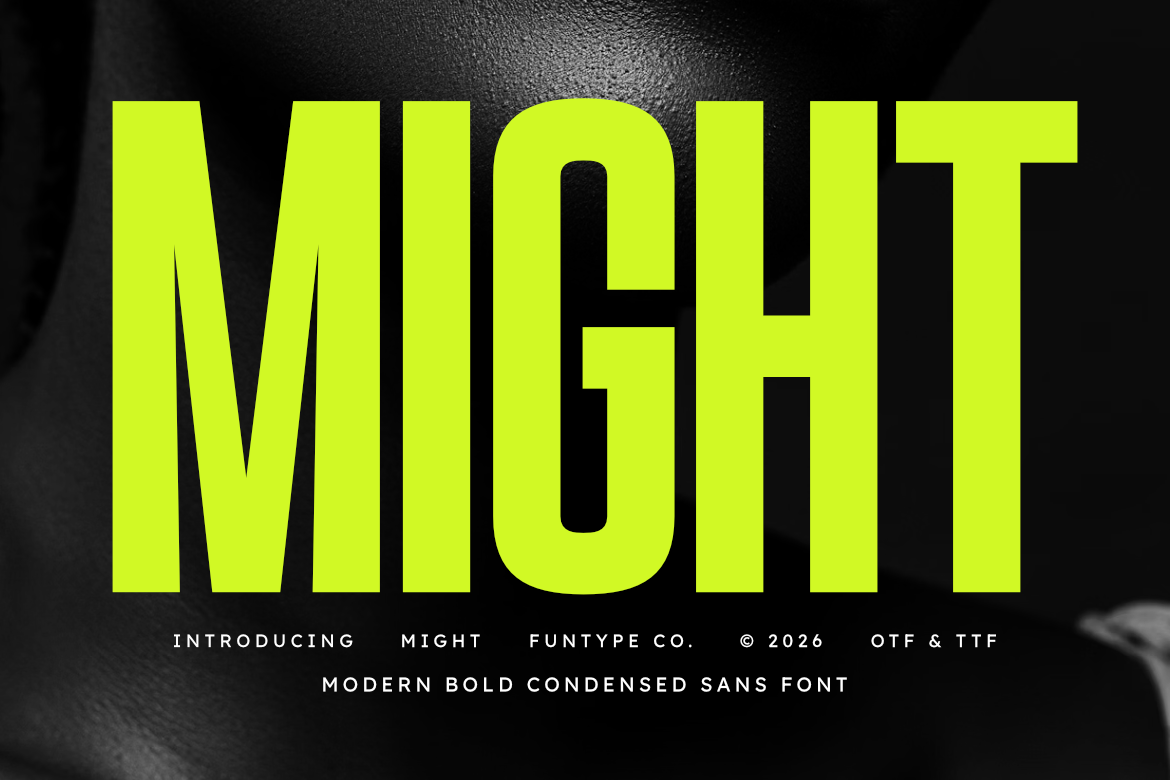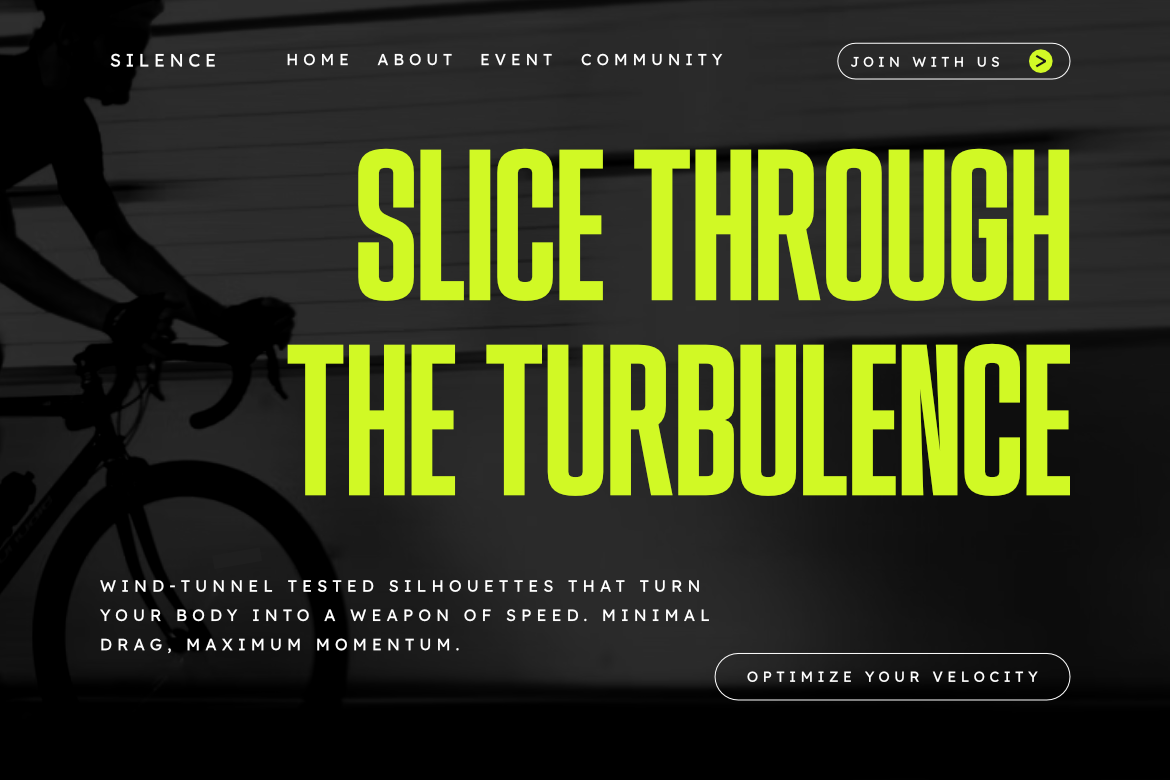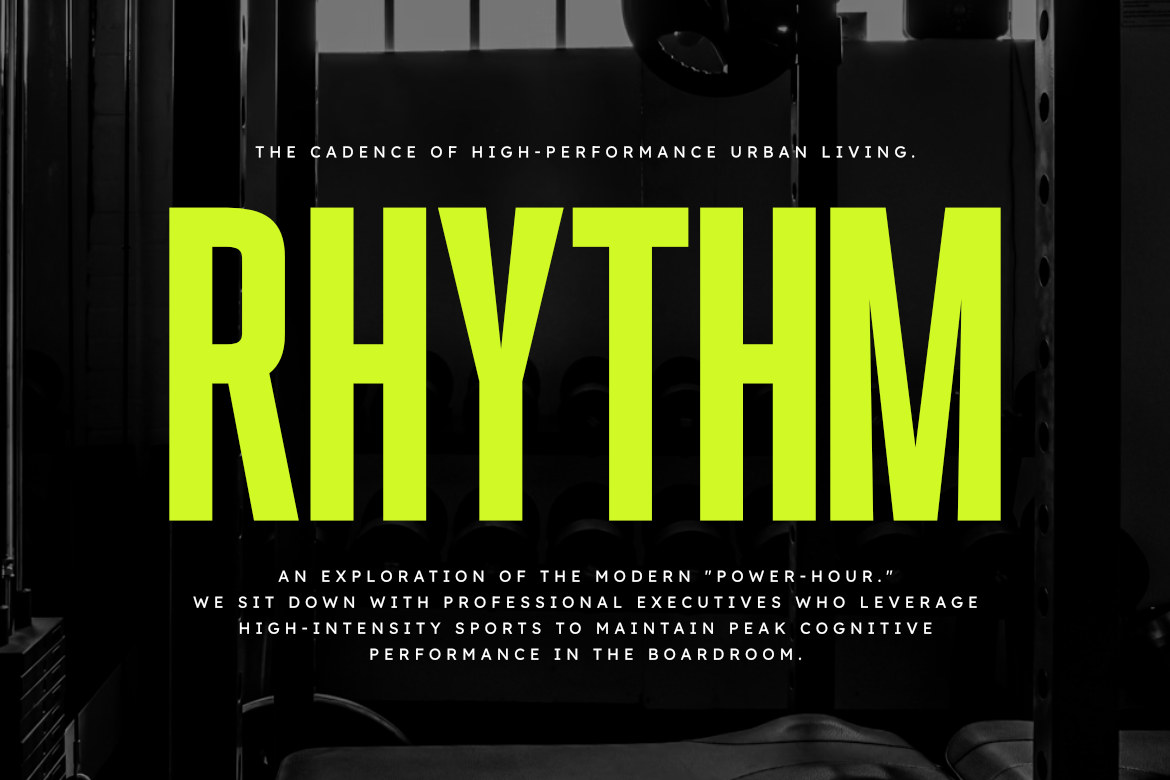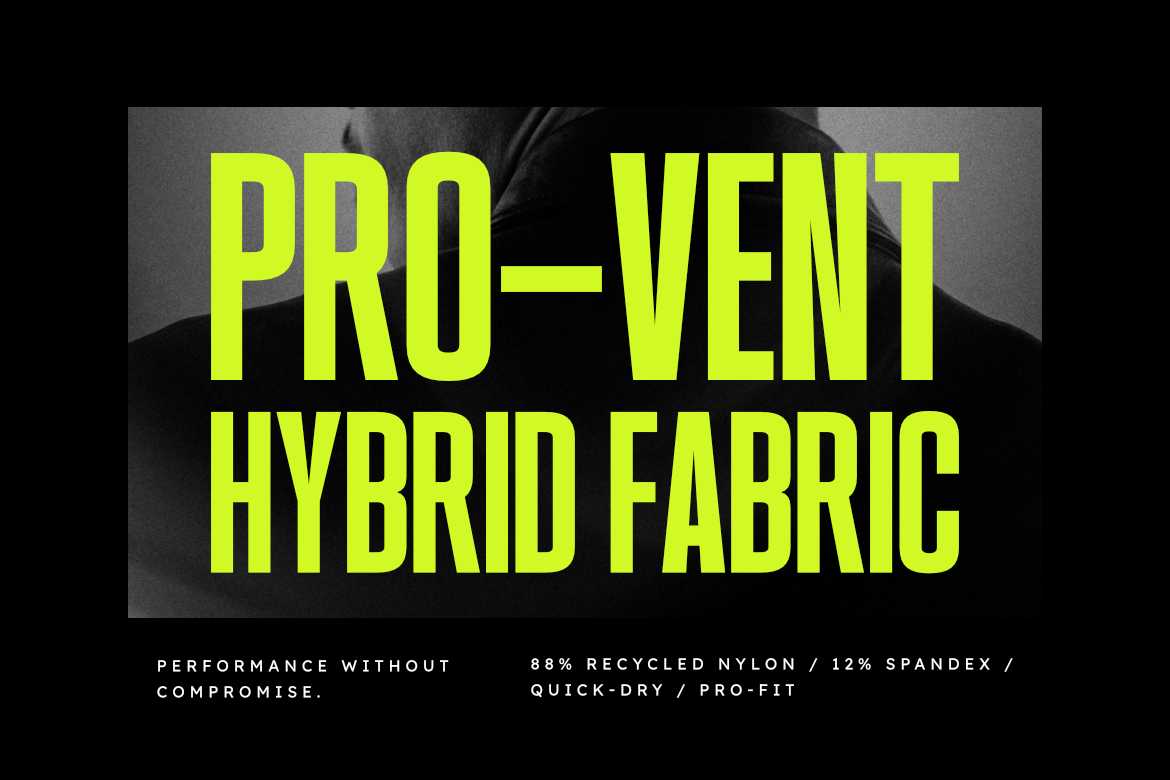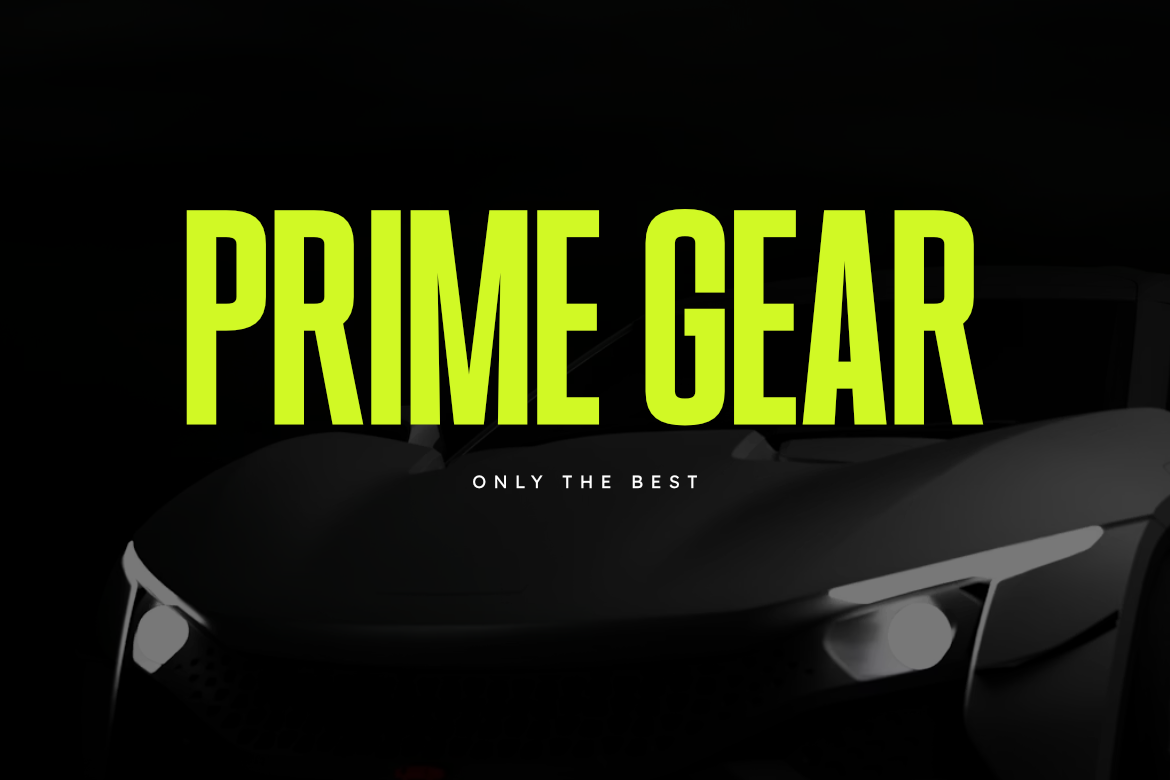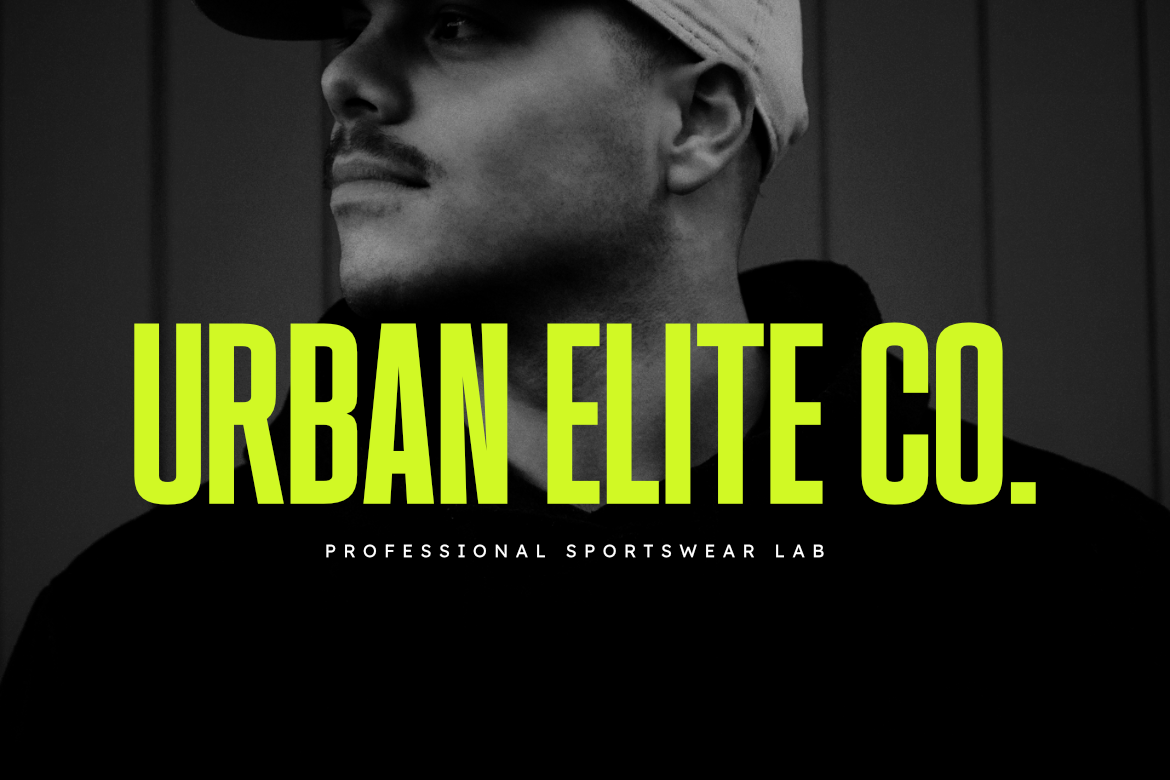
Might
Might – Modern Bold Condensed Sans Serif Font
Might is a sophisticated and powerful modern bold condensed sans serif font, thoughtfully designed to capture the essence of maximum visual impact and contemporary storytelling. With its heavy, ultra-compressed vertical structure and sharp, aggressive geometric inner cutouts, Might offers a professional aesthetic that brings a touch of commanding presence to any creative project.
This font is the ideal choice for designers looking to add a professional yet high-impact touch to their work. Whether you are crafting a striking urban logo, a sleek e-sports brand identity, or bold cinematic layouts, Might provides a seamless blend of modern edge and raw competitive power.
- Modern Bold Condensed Design: Optimized for a heavy, space-efficient, and professional look.
- Sharp Angular Inner Details: Meticulously crafted for superior visibility and a distinct high-end feel.
- Commanding Presence: Perfect for massive titles, heavy branding, and large-scale digital displays.
- Professional Aesthetic: High-end finish tailored for modern sports, tech, and automotive marketing.
Best Used For: Urban branding, sports logos, e-sports identities, cinematic movie posters, high-impact web headers, gym promotion layouts, industrial packaging, and aggressive social media marketing.